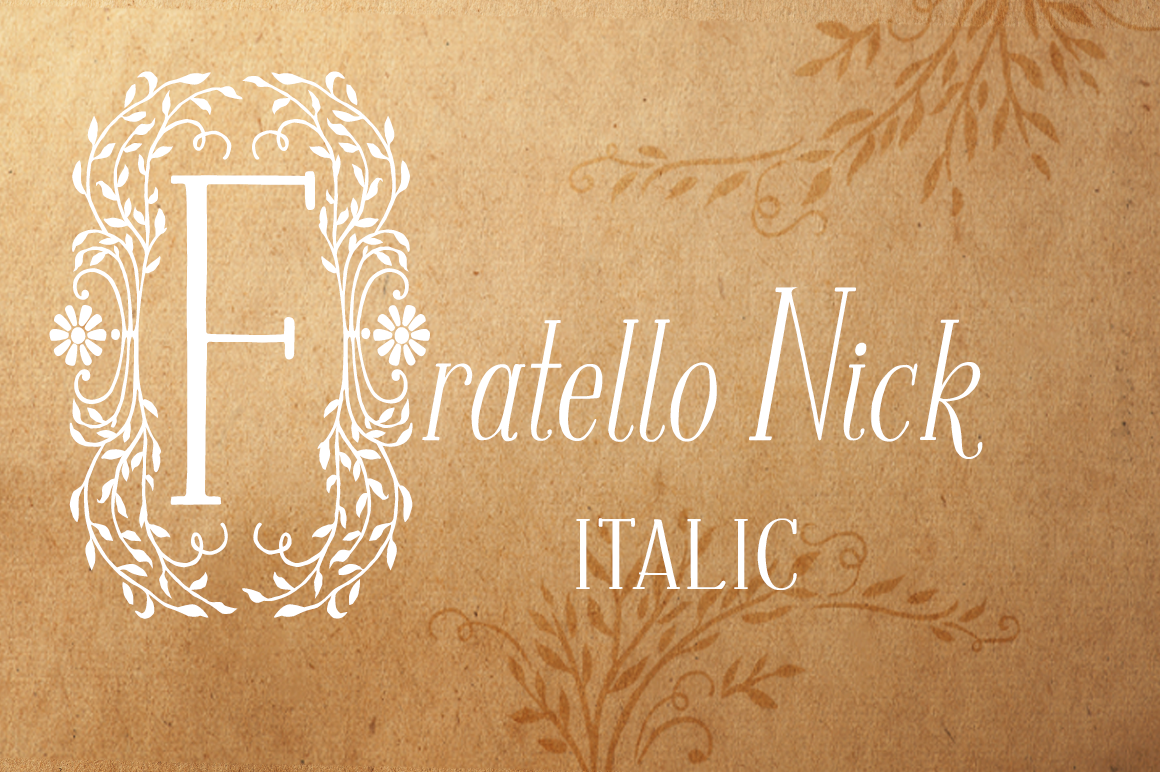
This is the italic version of Fratello Nick, a charming hand lettered font that was inspired by my beautiful red-headed son Nick.
Here’s the story of the inspiration behind the font:
Once upon a time, there was a red headed boy named Nicolas who loved to read books. So his mother would have him curl up in her lap and read to his heart’s content. And this made Nicolas a very happy boy.
The years have passed and Nicolas now goes by Nick. He went to college in Washington, D.C. where he became a Nationals fan. He lives and works there and knows the Metro like the back of his hand. But he can smoke a rack of ribs like the true Texas boy he is. He still loves to read. And that makes Nick a very happy man.
His mom (me) was inspired to hand letter this font to honor this boy she loves so much. Because raising a boy who becomes a wonderful man is something to celebrate. The moral of the story? Cuddling with books always leads to good things.
I hope Fratello Nick will be a part of helping you create stories of your own.